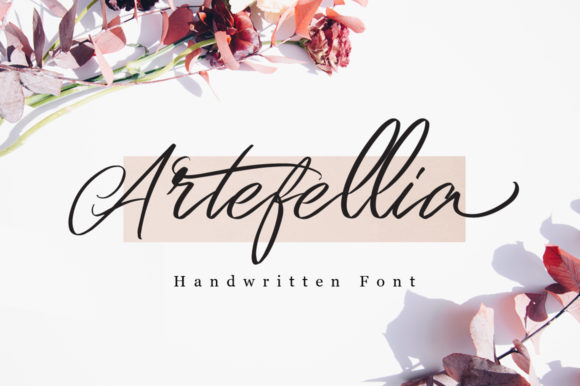
The Quest for the Perfect Font: Discovering Artefellia
I’ll never forget the time I was working on a wedding invitation project, and my client asked for a font that was “romantic, yet playful.” I scoured the internet, tried out dozens of fonts, but nothing seemed quite right. That was until I stumbled upon Artefellia, a beautiful script font that has since become a staple in my design toolkit.
What is Artefellia?
Artefellia is a romantic script font with playful curves, perfect for a variety of projects, from wedding invitations to branding and packaging. Its elegant, flowing lines evoke a sense of whimsy and sophistication, making it an excellent choice for designers, crafters, and creative hobbyists.
What I Love About Artefellia
• ✨ Elegant, cursive script with a playful twist
• 💫 Beautifully designed swashes and flourishes
• 🎨 Versatile and adaptable to various design projects
While Artefellia is an excellent font, it’s not without its quirks. For example:
• 🤔 Some users may find the font a bit too ornate for certain projects
• ⚠️ Limited availability of certain characters, such as ligatures
The Designer Inspiration Behind Artefellia
Artefellia’s design story begins with a passion for elegant, handwritten scripts. The font’s creator drew inspiration from classic calligraphy and modernized it with playful curves and swashes. The result is a font that’s both romantic and approachable.
Font Name Artefellia Font
Author feydesign
Q: What type of projects is Artefellia best suited for?
A: Artefellia is versatile and can be used for a variety of projects, including wedding invitations, branding, packaging, and more.
Q: Does Artefellia support OpenType features?
A: Yes, Artefellia supports OpenType features, including swashes, stylistic alternates, and glyphs.